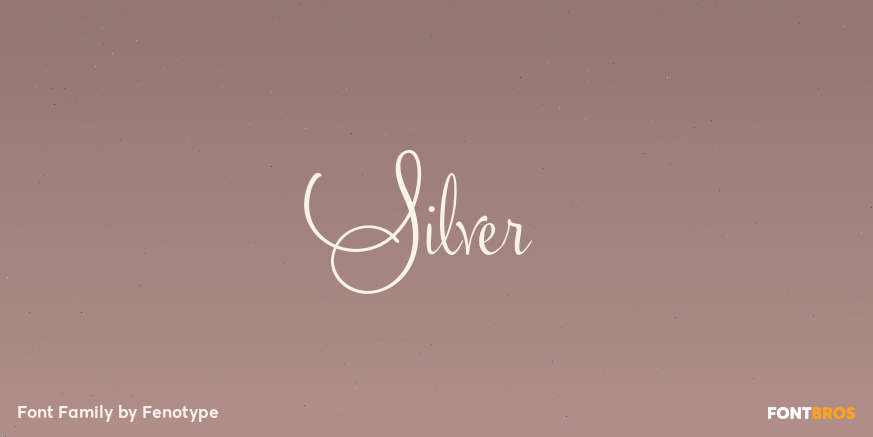
Silver
About Silver
Silver is a clean and elegant connected script. Silver is packed with more than 1000 glyphs. Click on Swash, Stylistic or Titling Alternates or manually choose from Glyph Palette from even more alternate characters. Keep on Standard Ligatures for maximum…